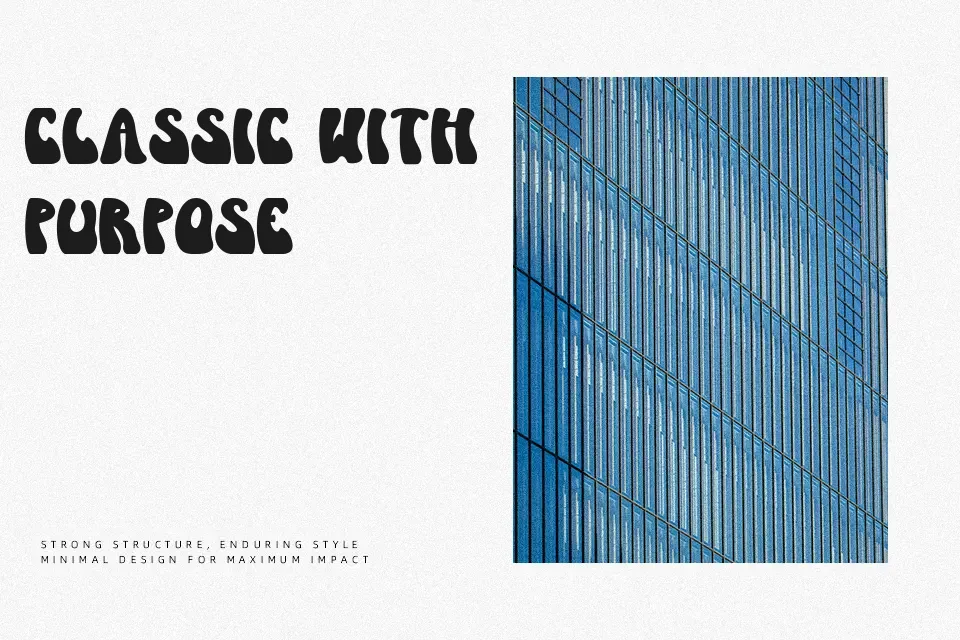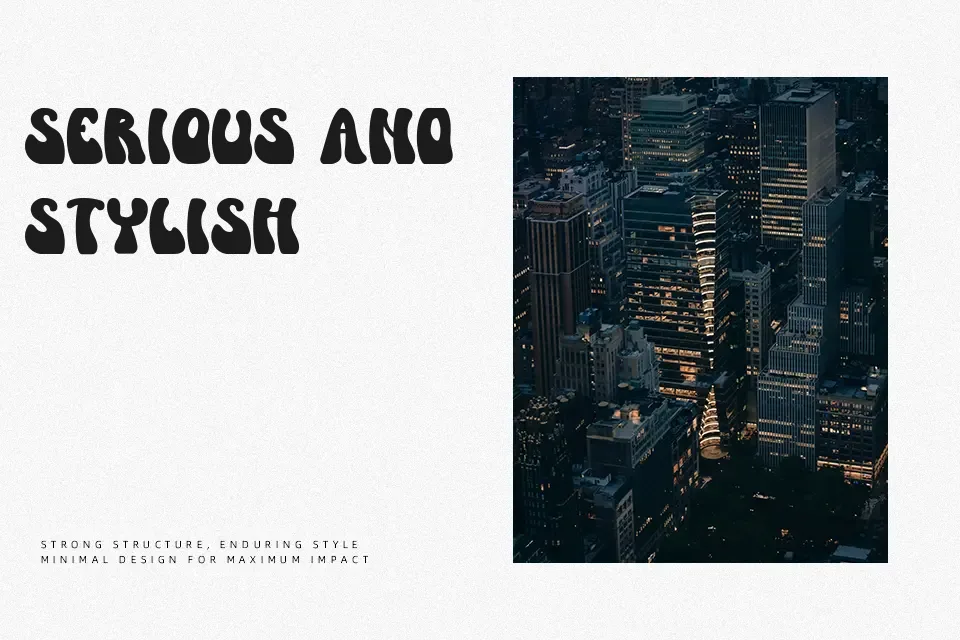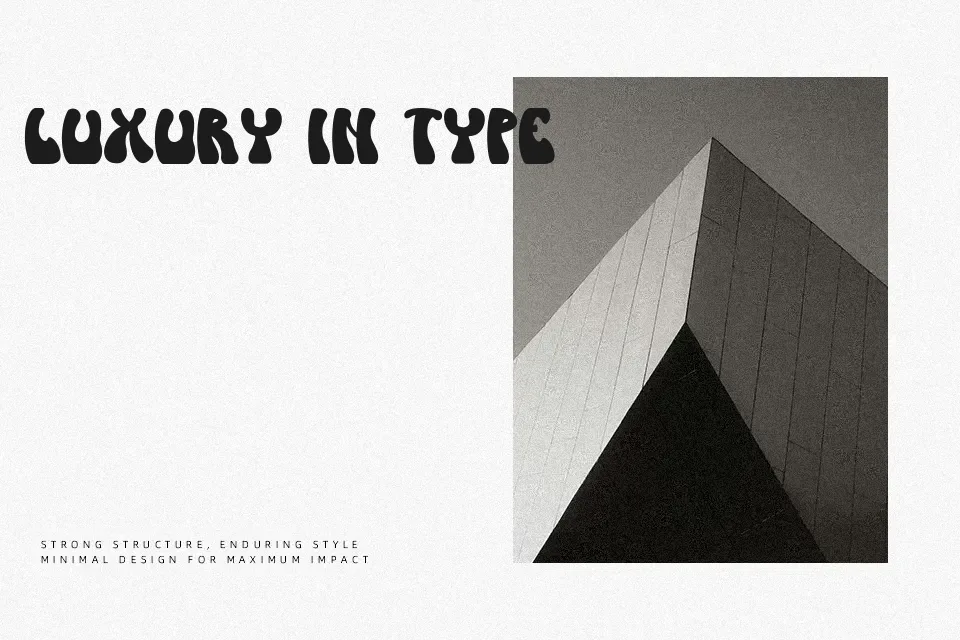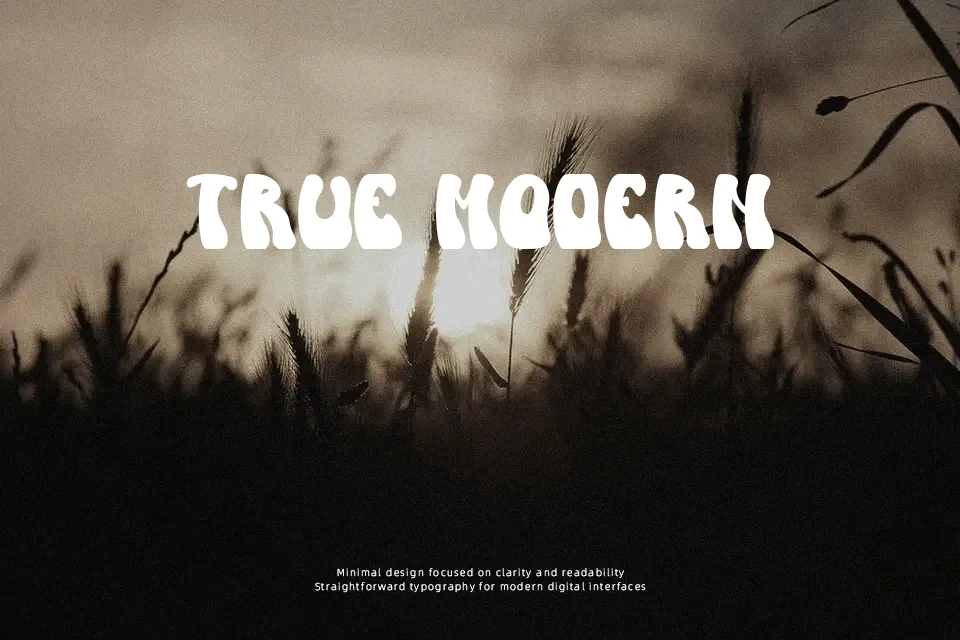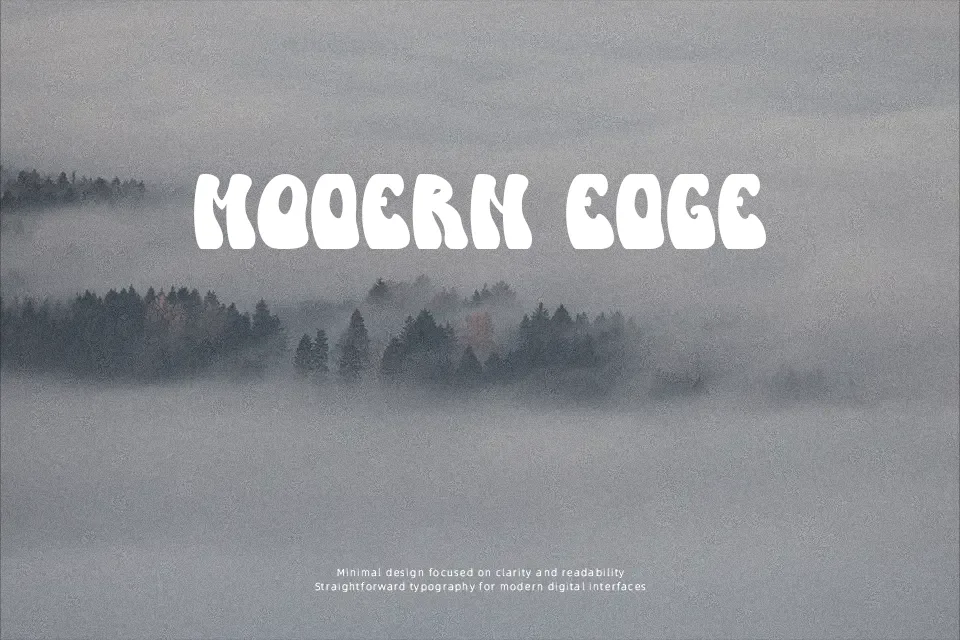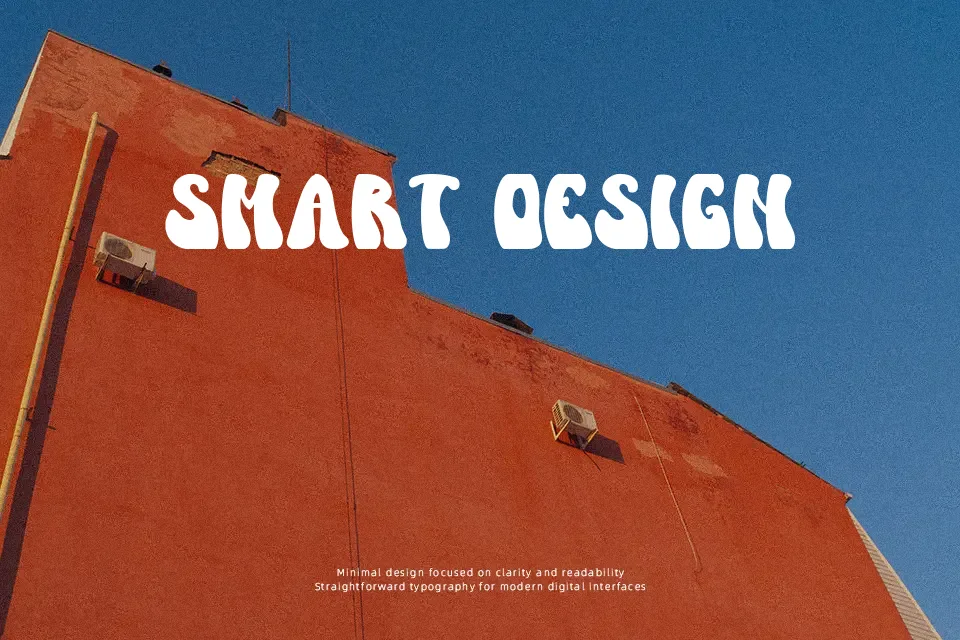
Tropical Vibe Font
Designed by Asep Rendi
Tropical Vibe Font showcases rounded letterforms shaped by thick, uniform strokes and tight character spacing reminiscent of seventies groovy typography. The overall structure balances bulbous contours with compressed inner counters, producing a dense visual rhythm across headline compositions. While this compact construction delivers substantial graphic weight in banner titles and apparel graphics, the heavy letterforms lose definition when reduced to small text sizes. Moderate tracking helps preserve clarity in medium display settings, but the exaggerated swelling along curved stems makes the typeface unsuited for continuous editorial reading. For short promotional titles and themed branding assets, the design provides an eye-catching retro presence that communicates immediate warmth and nostalgic energy.
Best For: summer festival posters, retro beverage packaging, streetwear apparel graphics
Not Ideal For: dense editorial body text, corporate financial reports, small mobile UI captions